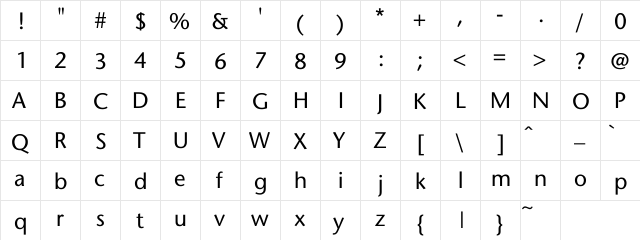
AldrichSans Regular
Design Context for AldrichSans Typeface
AldrichSans takes a measured approach to typography — its balanced proportions and neutral character make it a reliable workhorse for both digital and print work.